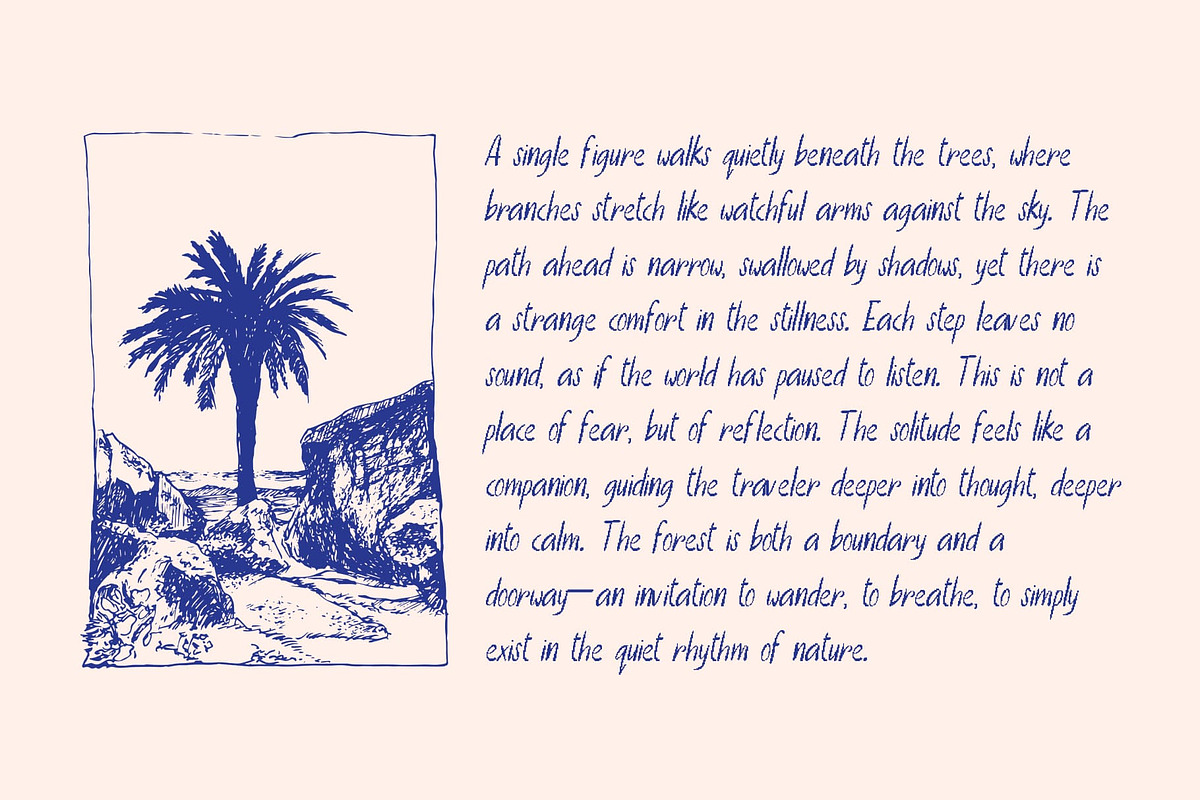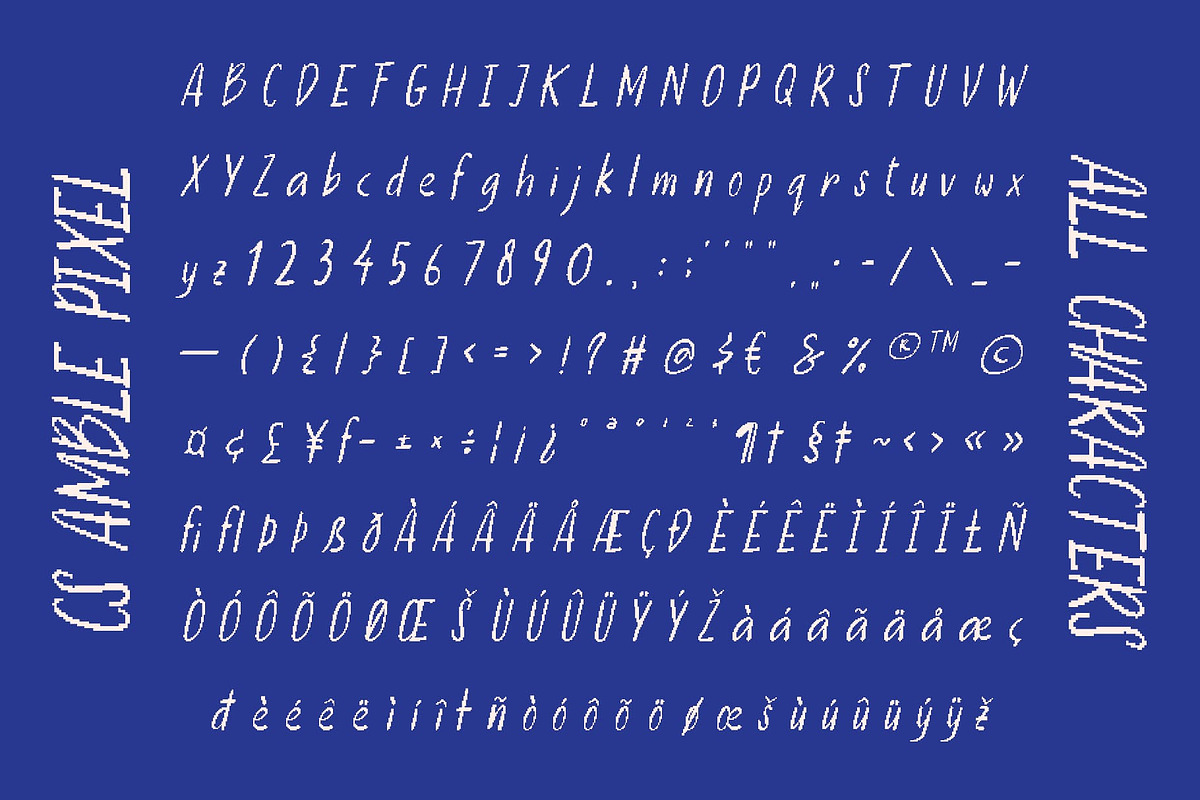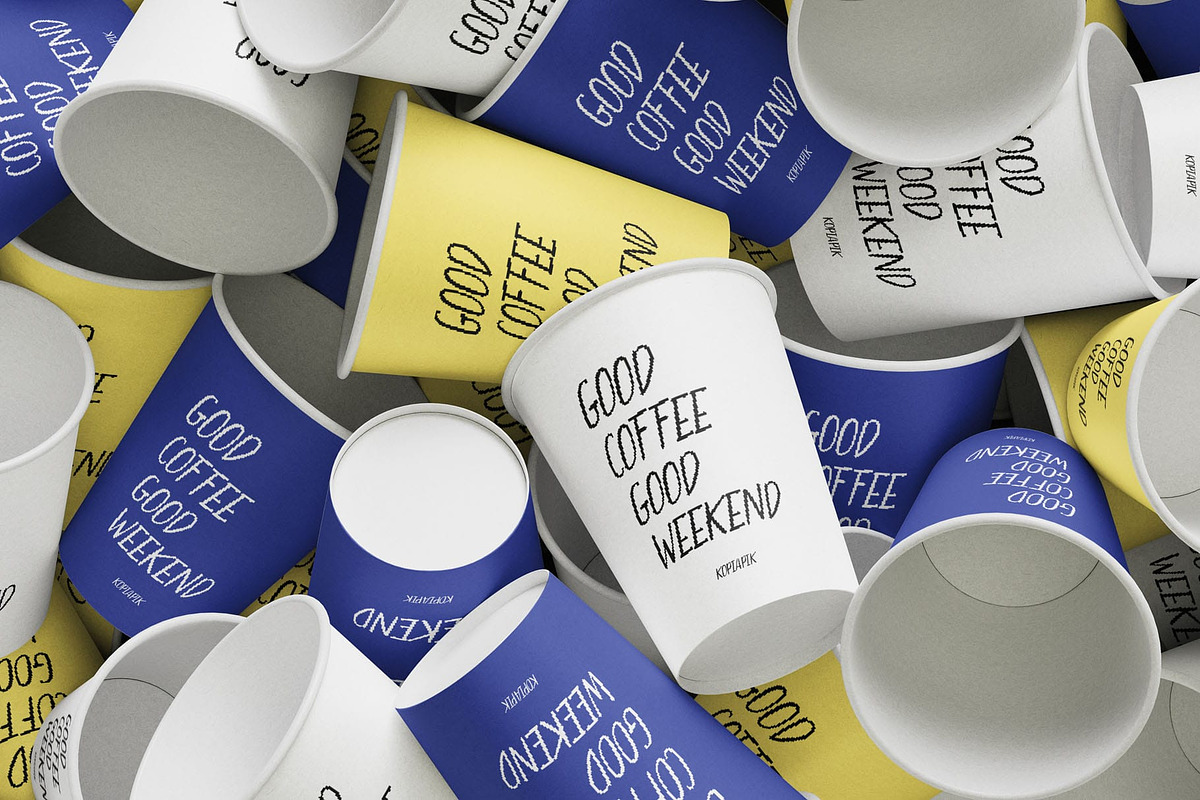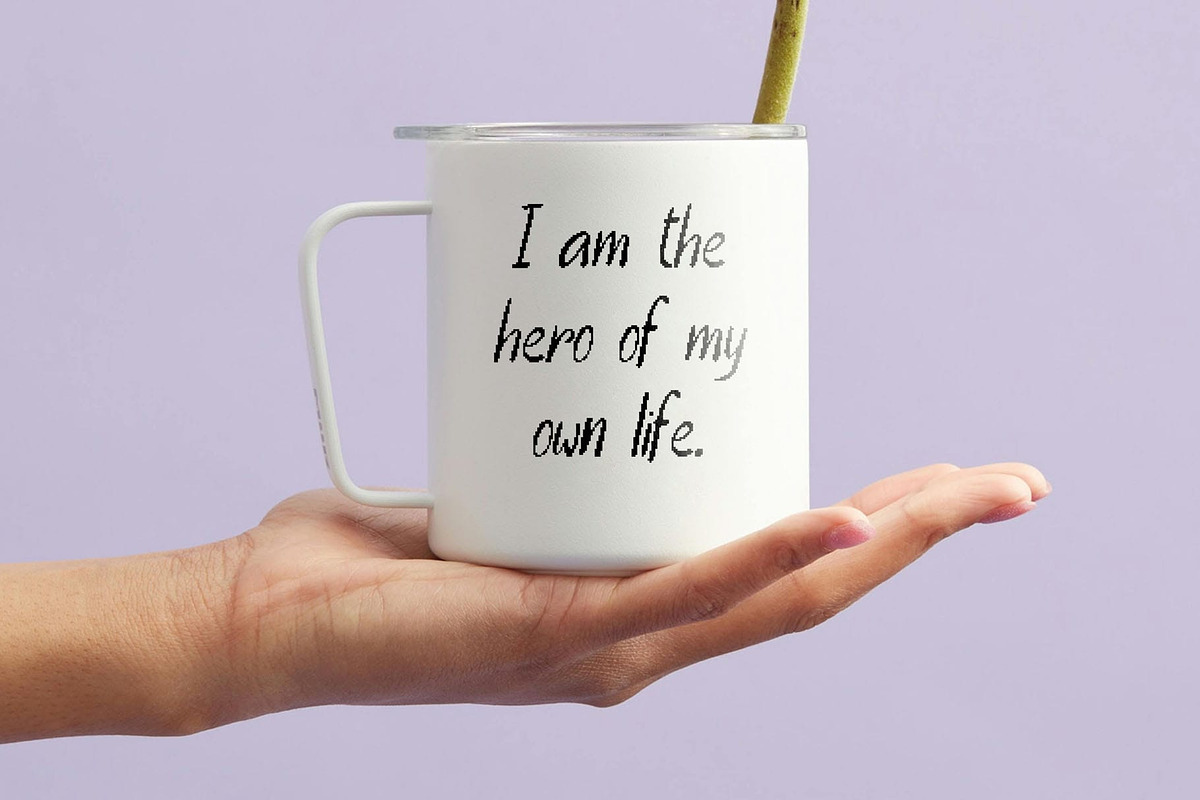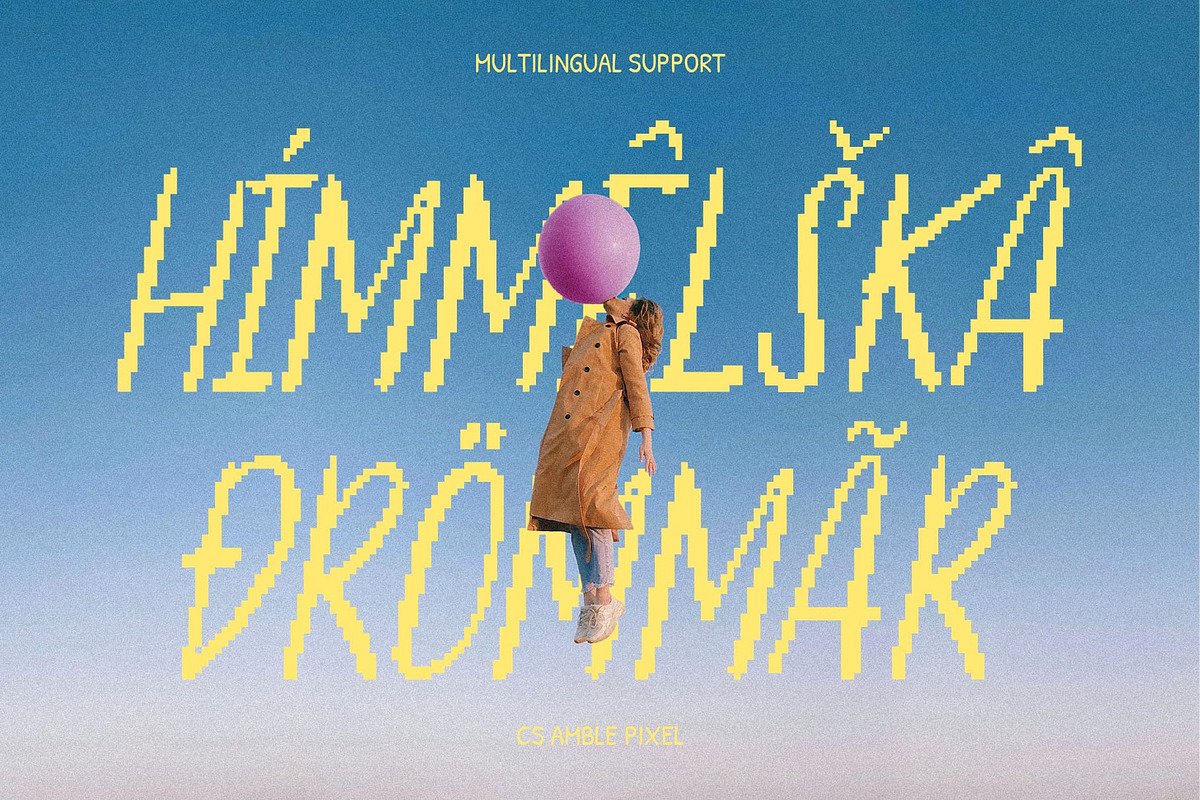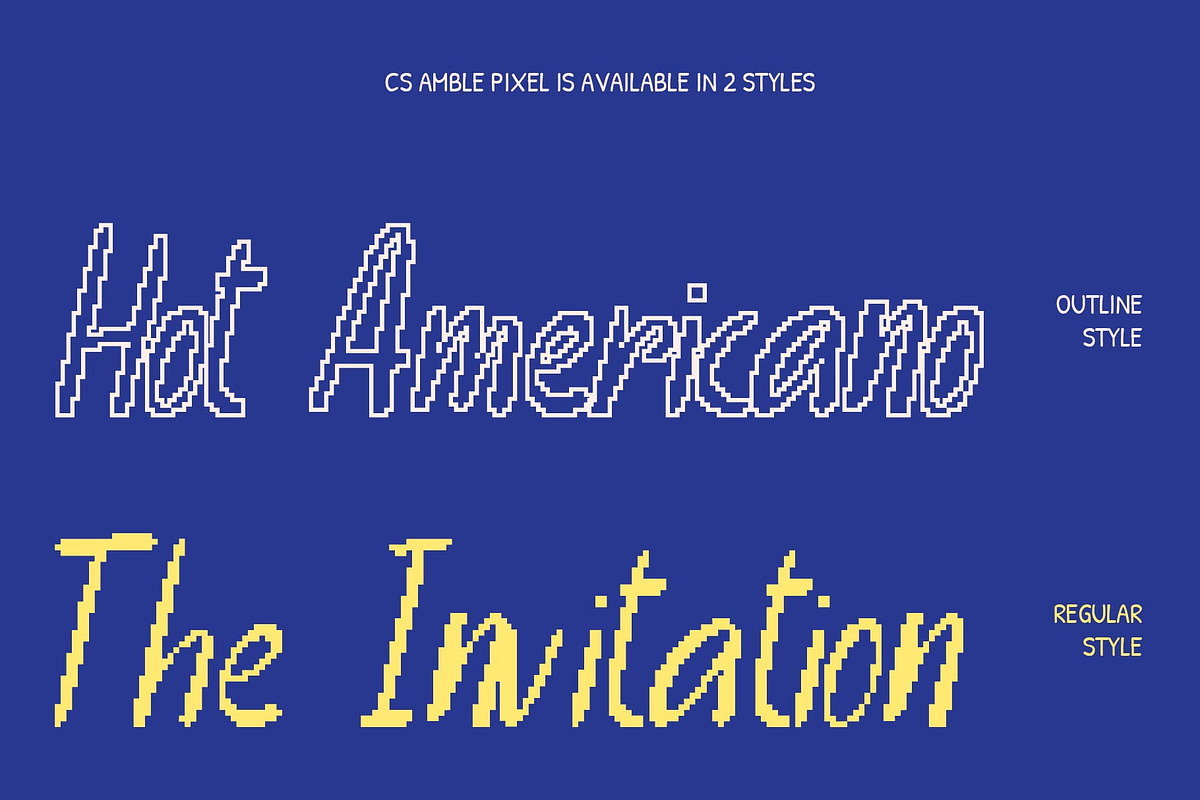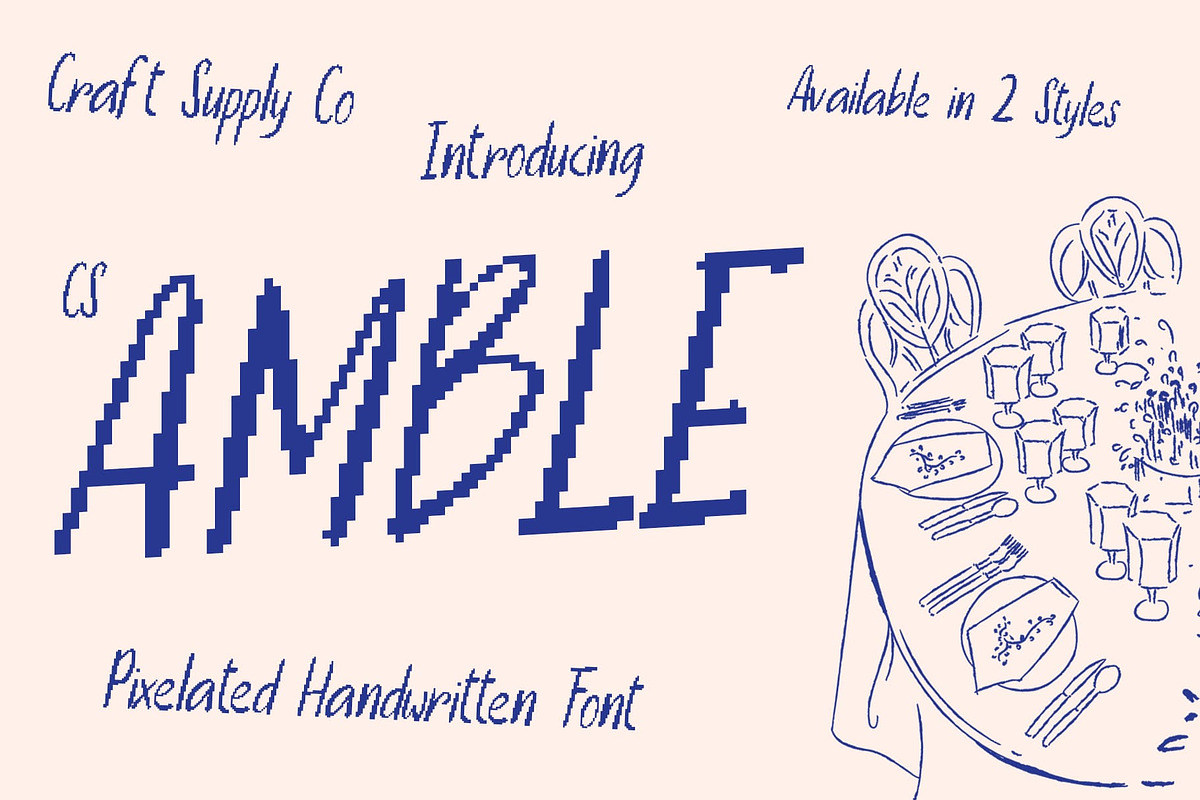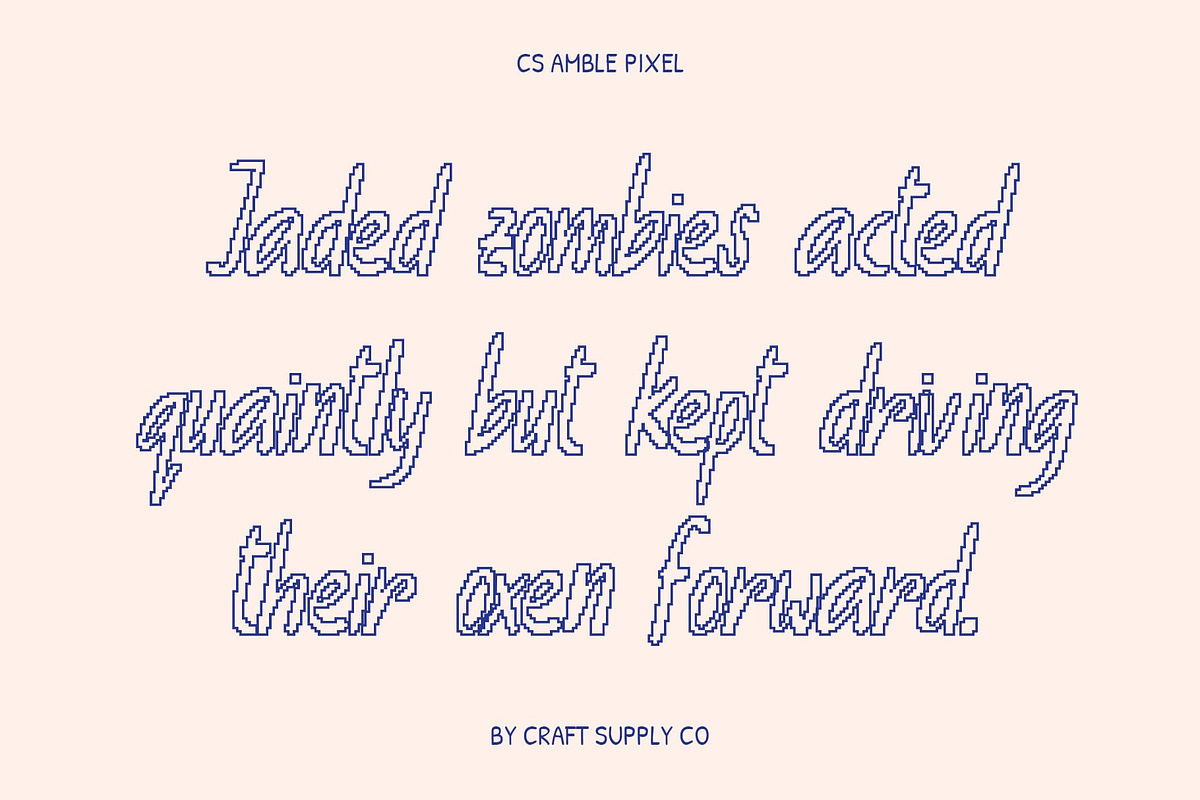
CS Amble Pixel
CS Amble Pixel – Handwritten Pixel Font: Where Casual Charm Meets 8-Bit Creativity
Handwritten Energy with Pixel Personality This is a handwritten-style pixel font infused with pixel detailing inspired by the 8-bit arcade era. Its casual letterforms radiate warmth and approachability, while the pixel texture introduces a layer of playful nostalgia. This balance between hand-drawn charm and digital quirk makes the font stand out in modern creative projects.
Expressive Character for Playful Designs Every letter in this font carries a sense of movement and individuality. The strokes feel spontaneous, almost like doodles brought to life in pixel form. This expressive quality adds a human touch, perfect for projects aiming to feel friendly, lighthearted, and imaginative. Designers can use it to emphasize personality in headlines, posters, or digital visuals where a bold statement is needed.
Pixel Nostalgia with Modern Appeal Drawing from the golden age of gaming, the pixel details celebrate retro aesthetics while keeping the overall design fresh and contemporary. This fusion of the past and present ensures connects with audiences who appreciate both nostalgia and innovation.
Versatile Use Across Creative Fields From branding and packaging to posters, editorial layouts, and digital content, this font adapts with ease. Its playful tone is particularly suited for children’s products, fun campaigns, or lifestyle brands seeking a casual, inviting identity. This font provides a distinctive texture that makes any project memorable.